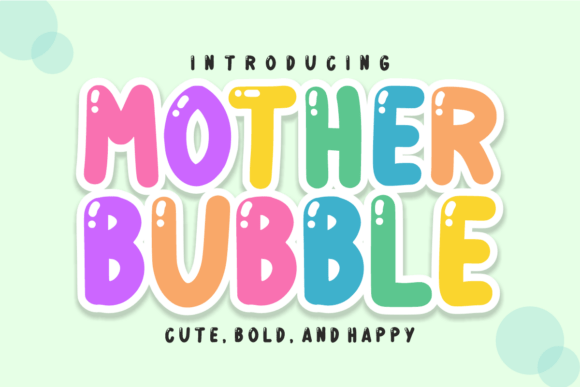
Mother Bubble: A Display Font That Delivers Joy at First Glance
It was 3 p.m. on a Tuesday—two days before the launch of a new online course series—and I was tweaking the final Instagram carousel post. The headline needed to stop scrollers, not just inform them. I swapped in Mother Bubble. Instantly, the mood shifted: softer, friendlier, more inviting—like a warm invitation instead of a sales push. That’s when it clicked: Mother Bubble isn’t just a display font—it’s a tone-setter for campaigns that thrive on warmth and immediacy.
What Makes Mother Bubble Work So Well in Real Campaigns?
Mother Bubble is a premium display font with thick, rounded letterforms and gentle, bubbly contours. It’s intentionally bold but never aggressive—playful without being childish, sweet without sacrificing clarity. Its personality lands somewhere between “hand-drawn charm” and “polished digital presence.” You feel it most in short-form contexts: a YouTube thumbnail title, a Pinterest pin label, or a Reels cover text overlay. It doesn’t whisper—it beams. And in fast-scrolling feeds where attention lasts under two seconds, that beam matters.
I used it across six campaign assets for a spring-themed content series: email banners, Instagram story stickers, a webinar header, three Pinterest vertical pins, a landing page hero tagline, and a set of branded Canva templates. In every case, it held up visually—even at small sizes on mobile previews—because its generous x-height and open counters kept letters legible even when scaled down or overlaid on busy backgrounds.
Where Mother Bubble Shines (and Where It Doesn’t)
Mother Bubble excels in short, high-impact display roles: sale announcements (“SPRING SALE!”), product teasers (“Coming Soon”), quote graphics (“You’ve Got This”), and campaign labels (“Week 1: Foundations”). It works beautifully on light and dark backgrounds alike—its weight gives it contrast without needing heavy outlines or shadows. On a muted pastel background? It pops. Over a textured photo or gradient? It anchors the composition.
But here’s what I learned from testing: Mother Bubble isn’t built for long copy, dense information, or formal contexts. It’s not a body font. Don’t use it for paragraph text, pricing tables, terms & conditions, or corporate reports. It also loses clarity below ~18px on mobile screens—so avoid it for caption text or fine print. And while it adds instant charm to a kids’ brand or wellness course, it would clash with a fintech dashboard or legal service landing page unless used *very* sparingly (e.g., only in a single animated headline).
Practical Pairings and Production Notes
For balance and hierarchy, I consistently paired Mother Bubble with a clean, neutral sans serif—like Inter, Poppins, or Montserrat. That combo gave me expressive headlines + trustworthy, readable supporting text. For a more editorial or lifestyle feel, I tried pairing it with a subtle serif (Lora or Playfair Display) for subheads—softening the contrast while keeping visual rhythm intact. Avoid pairing it with another highly decorative font (like a busy script or condensed stencil); Mother Bubble already carries strong character, so it needs breathing room.
In production, I checked the font files before exporting anything client-facing: Mother Bubble includes OpenType features like stylistic alternates and ligatures (useful for customizing “oo,” “ll,” or “tt” combinations), multiple weights (though primarily designed as a single-weight display typeface), and broad multilingual support—including Latin Extended-A, so accented characters in Spanish, French, and Portuguese render cleanly. All files came in .OTF and .TTF formats, and the commercial license clearly covers social ads, digital templates, merch, and client work—no surprises there.
Digital Visibility Tips You’ll Actually Use
On YouTube thumbnails: Use Mother Bubble for the main phrase only—max three words—and keep it centered with generous spacing. It reads faster than thinner fonts at thumbnail scale (especially on mobile), and its rounded forms resist pixelation better than sharp-edged alternatives.
For Instagram posts: Apply it to top-third text overlays—not full-image text blocks. Test how it looks in the feed preview (smaller than you think!). I found 48–60px size worked best for square posts; for Stories, bump to 72px and add subtle stroke (1–1.5px) only if overlaying on complex imagery.
In email banners: Keep it above the fold and limit to one line. Paired with a high-contrast background color (not a photo), it loads fast and communicates intent before the reader even processes the rest of the layout.
One last note: While Mother Bubble feels handmade, it’s engineered for digital reliability. No weird kerning gaps, no inconsistent baseline alignment, no missing glyphs in common phrases. That predictability saves time during rapid iteration—something every campaign designer knows is priceless.
Why It Fits Into Your Brand Toolkit—Not Just One Campaign
Mother Bubble isn’t a one-off novelty. It’s a strategic asset for brands building recognition through consistent, joyful expression. Think of it as your “smile in type”—a reusable element that signals approachability across touchpoints. When reused thoughtfully (same weight, same size range, same placement logic), it starts to function like a mini-logo: instantly associated with your voice, your energy, your vibe.
It won’t replace your primary brand font—but it might become your go-to for moments that need emotional lift. Not every campaign calls for bold cheer, but when yours does, Mother Bubble delivers it with confidence, clarity, and zero visual noise.